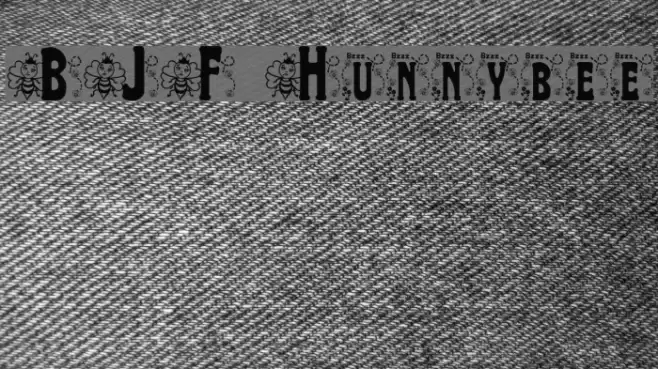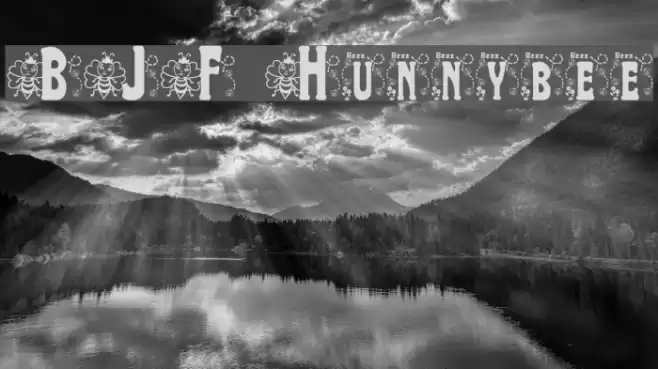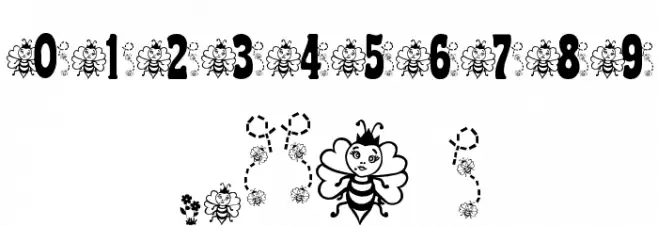
BJF Hunnybee Font
BJF Hunnybee Description
This playful and whimsical font features bold, uppercase letters adorned with intricate bee and floral designs. Each character is uniquely embellished, creating a lively and decorative appearance. The font incorporates buzzing bees and flowers, adding a sense of movement and nature-inspired charm. The numbers and special characters follow the same theme, ensuring consistency throughout. This font is ideal for projects that require a fun and engaging aesthetic, capturing attention with its detailed and artistic style.
A whimsical font with bee and floral embellishments on bold letters from Uncategorized fonts.
- Proposed Projects: Ideal for children's books, greeting cards, playful branding, and nature-themed designs.
- Use Case: Headlines, Logos, Decorative text